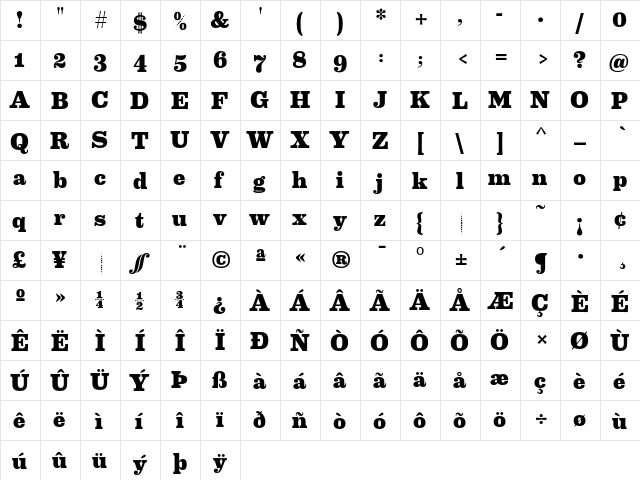
Eames Century Modern Extra Bold Regular
| Foundry | House Industries |
| Designer | Erik van Blokland |
Design Context for Eames Century Modern Extra Bold Typeface
Eames Century Modern Extra Bold offers clean, dependable letterforms without strong stylistic allegiance, making it a practical choice for designers who need flexibility. Its bold stroke weight gives it real presence on the page.
Pro Tip: Pair Eames Century Modern Extra Bold with a font of contrasting weight or personality to build a more expressive typographic hierarchy.